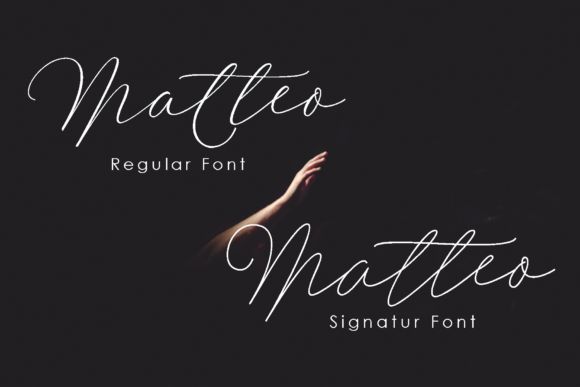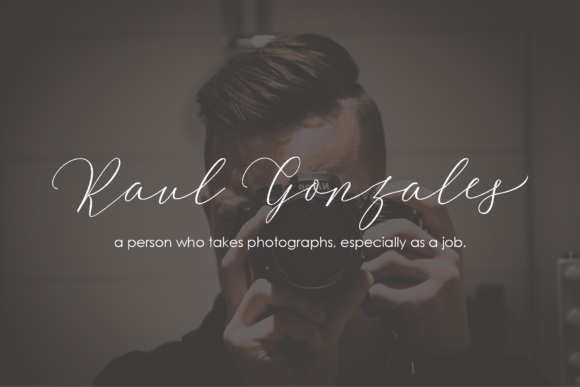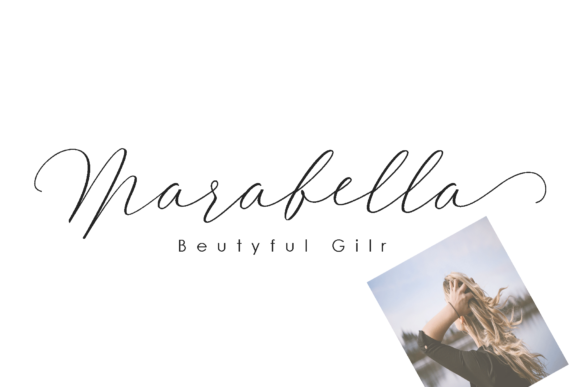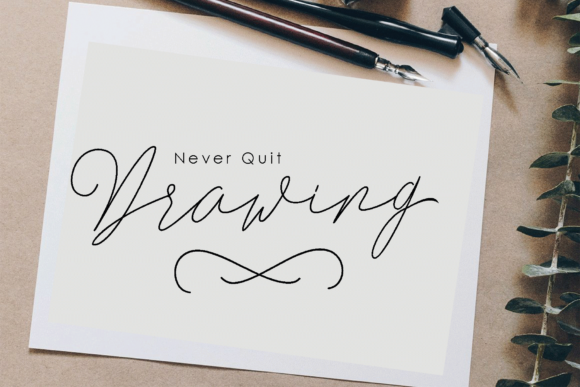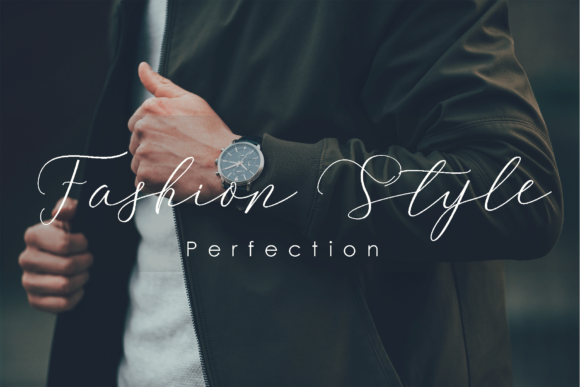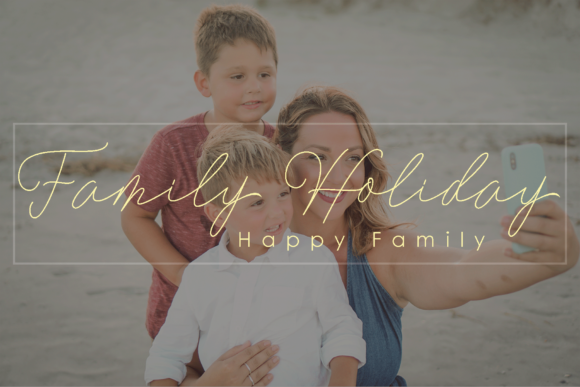
Introduction to Matteo Duo Font
The Matteo is an elegant font duo.
Included are Matteo Lines and Matteo Regular Both are stylish calligraphy typefaces with fine lines, varying baselines, and classic and elegant touches.